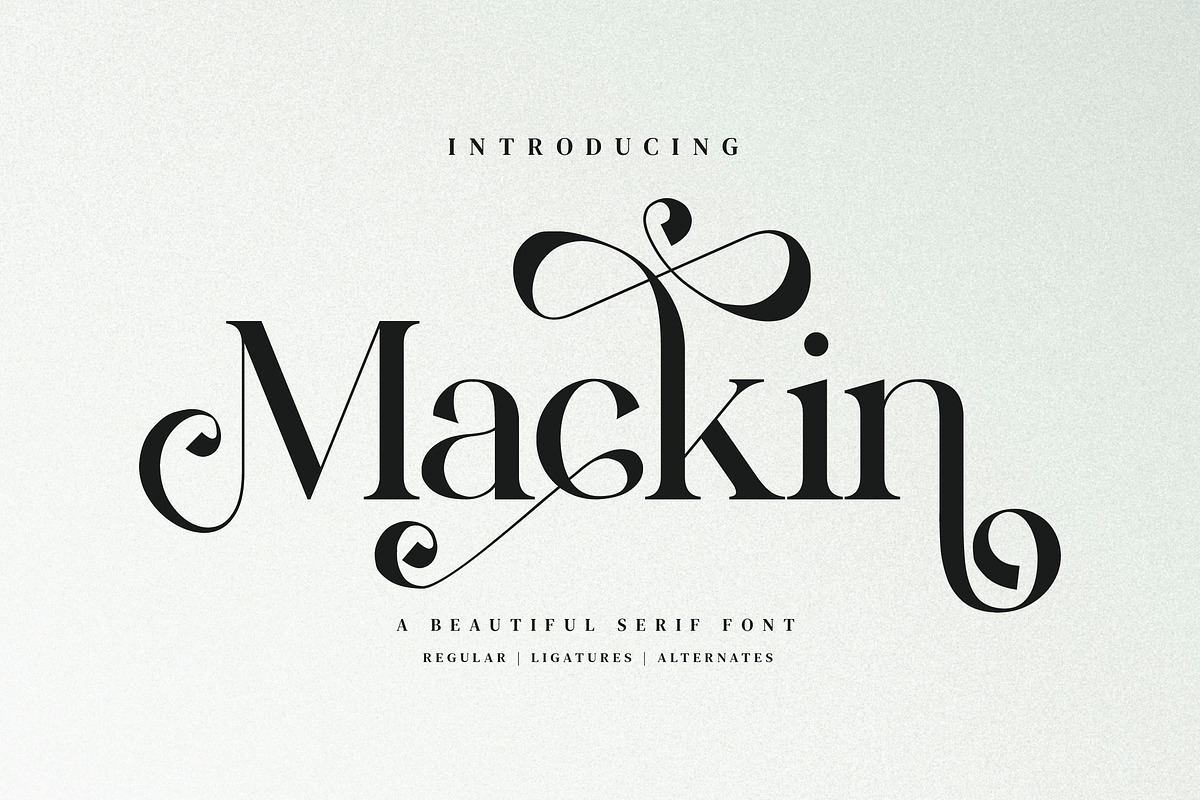
Mackin – Luxury Serif Font
Mackin – Luxury Serif Font. Mackin Stylish Ligature Typeface, inspired by the famous minimalist logo perfect for the purposes of designing templates, brochures, videos, advertising branding, logos and more.